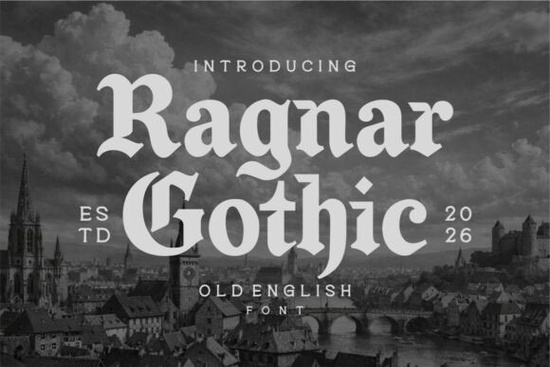
If you've been searching for a typeface that carries the weight of old-world lettering but still works in modern layouts, the Ragnar Gothic Font is worth a close look. It's an Old English–style typeface designed with clean lines and strong presence, making it useful for branding, apparel graphics, and print-on-demand projects. Released in 2026, it was built specifically for designers who want that Gothic aesthetic without sacrificing readability.
What Makes Ragnar Gothic Different from Other Blackletter Fonts?
A lot of blackletter typefaces lean heavily into ornate, medieval detailing. That works for some projects, but it can become hard to read at smaller sizes or on digital screens. Ragnar Gothic takes a different approach. It keeps the strong vertical strokes and angular character shapes you'd expect from a Gothic font, but trims away the excess flourishes.
The result is a typeface that looks bold and historic without feeling cluttered. It holds up well on:
- Merchandise mockups hoodies, hats, and tote bags
- Logo concepts especially for brands that want a rugged or heritage feel
- Album art and posters music projects, event flyers, and band merchandise
- Product labels craft beer, hot sauce, whiskey bottles
- Social media graphics bold headers and quote posts
Who Is This Font Best For?
Ragnar Gothic works well for anyone building a visual identity around strength, history, or raw energy. If you run a streetwear brand, a brewery, or a small business with a vintage-inspired aesthetic, this font gives you a solid typographic foundation.
Print-on-demand sellers will also find it useful. Gothic lettering tends to perform well on apparel designs, especially in niches like heavy metal, biker culture, fitness motivation, and medieval fantasy. A single strong typeface can carry an entire product line's visual tone, and this one does that job reliably.
If you're a crafter working on invitations, signage, or wall art, the clean structure of Ragnar Gothic makes it easier to pair with decorative elements without everything looking too busy.
How Does It Compare to Other Gothic Typefaces?
Creative Fabrica has several blackletter-style fonts worth considering alongside Ragnar Gothic. Here's a quick comparison:
- Sam Font A blackletter typeface with a slightly more traditional calligraphic feel. Good for projects where you want that hand-drawn quality.
- Whitcher Font Leans into a darker, more mysterious Gothic look. Works well for fantasy-themed or Halloween designs.
- Black Crown Font Has a regal, commanding presence. A solid pick for logos and branding that need a touch of authority.
Ragnar Gothic sits in a sweet spot between all of these. It's expressive but not over-decorated. It has personality but doesn't compete with other design elements on the page. If you need a workhorse Gothic font that adapts to different project types, it's a strong choice.
What Should You Pair It With?
Blackletter fonts rarely work well as body text. They're designed for headlines, titles, and display use. To get the most out of Ragnar Gothic, pair it with a simple sans-serif or a clean serif font for longer text blocks.
Some pairing ideas:
- A minimal sans-serif like Montserrat or Inter for modern contrast
- A vintage serif like Playfair Display for a cohesive heritage feel
- A handwritten script for casual, streetwear-style compositions
Keep your body text between 14–18px and let the Gothic typeface dominate the visual hierarchy through size and placement. White space is your friend when working with dense letterforms like these.